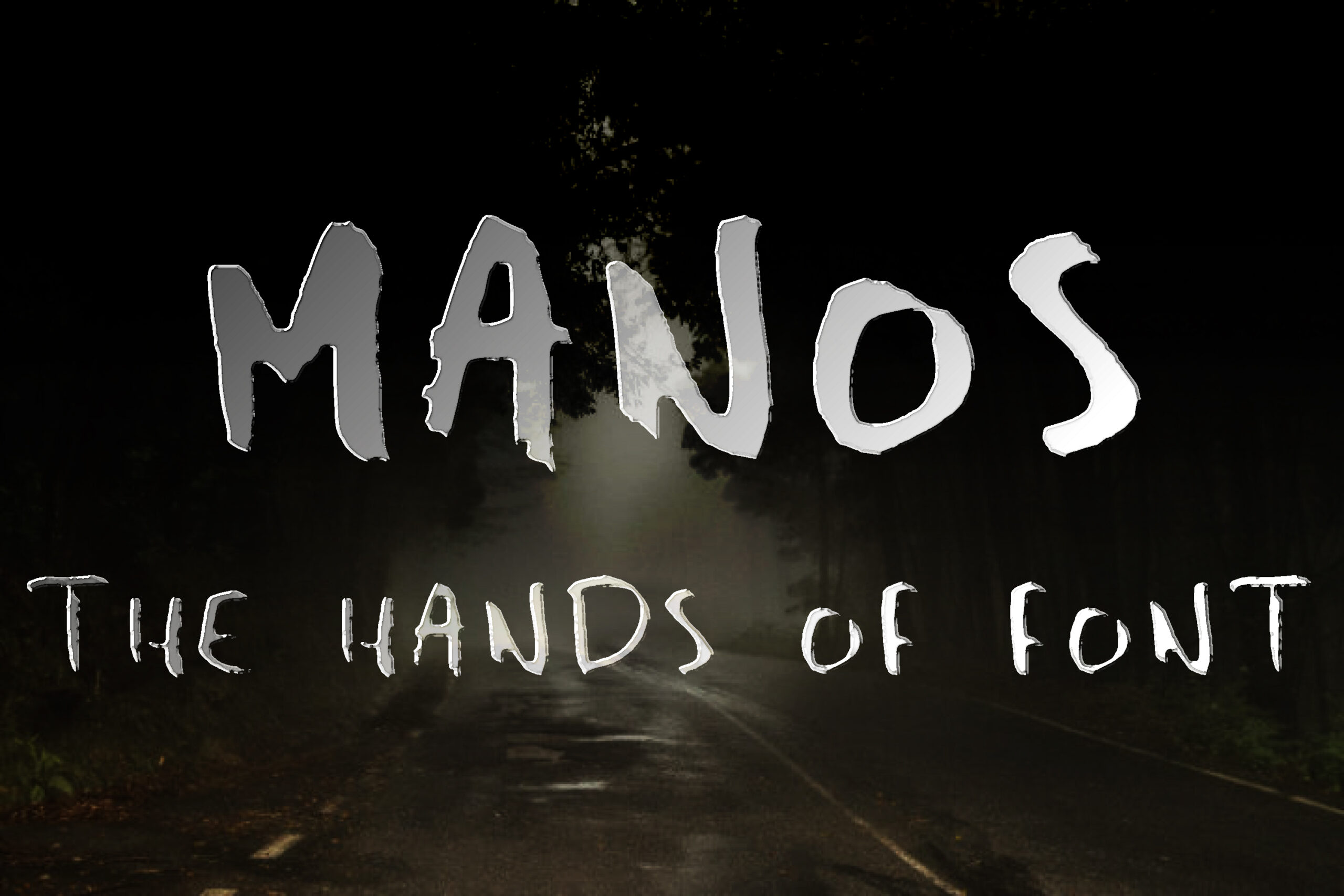
Manos Font
About Manos Font
Manos teeters the line between friendly and aggressive, making it an adaptable enough font for a number of designs. The design is crafted around the actual handwriting of the author, making it one of a kind.